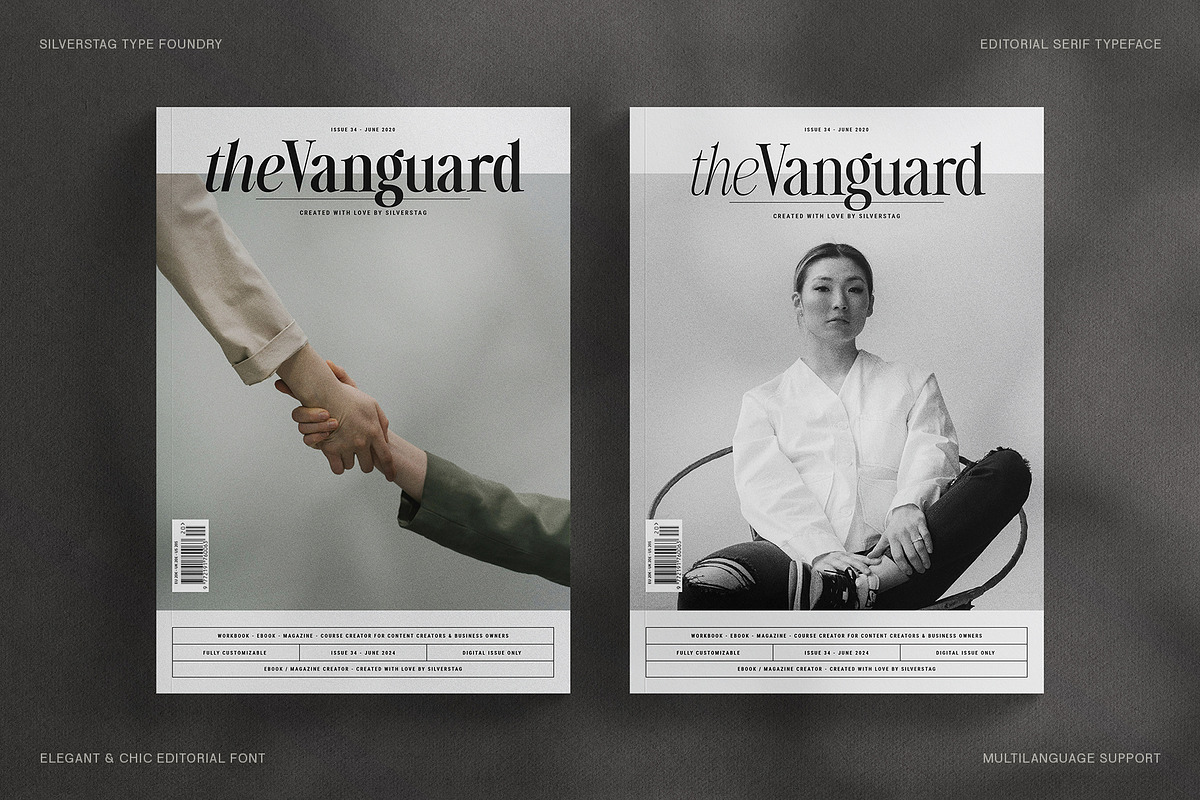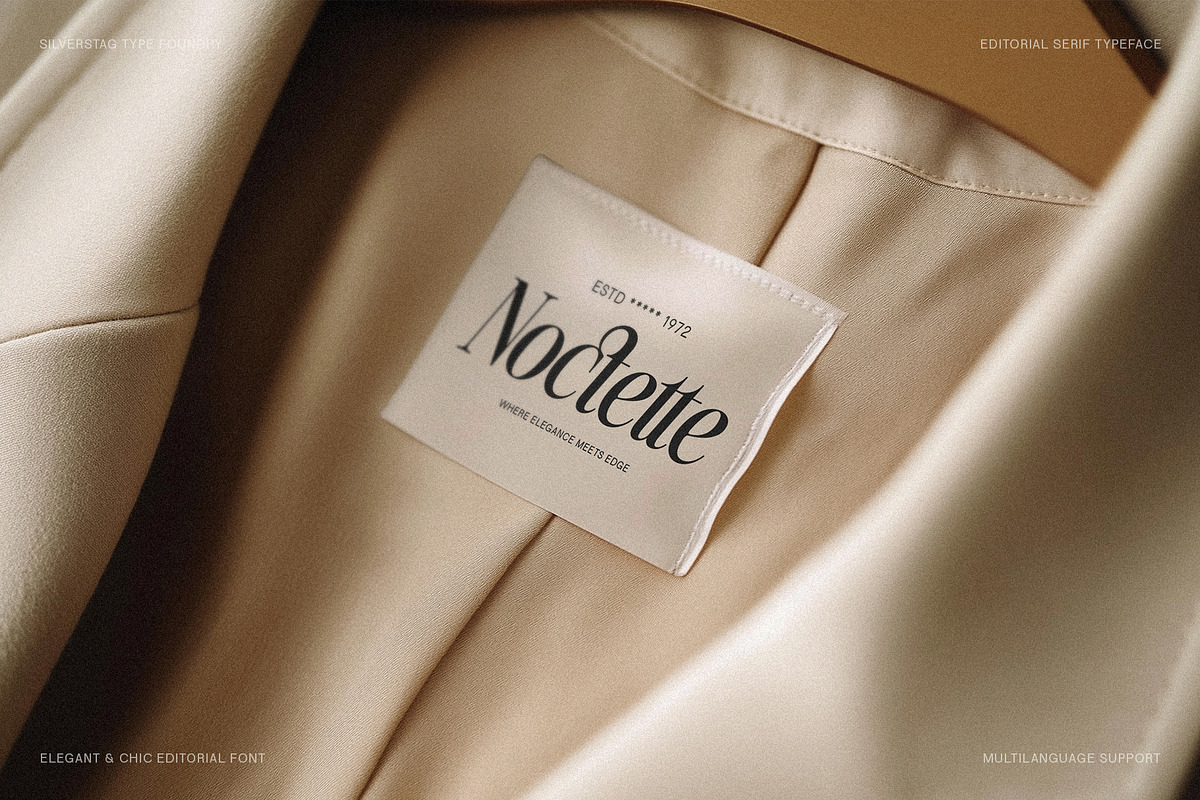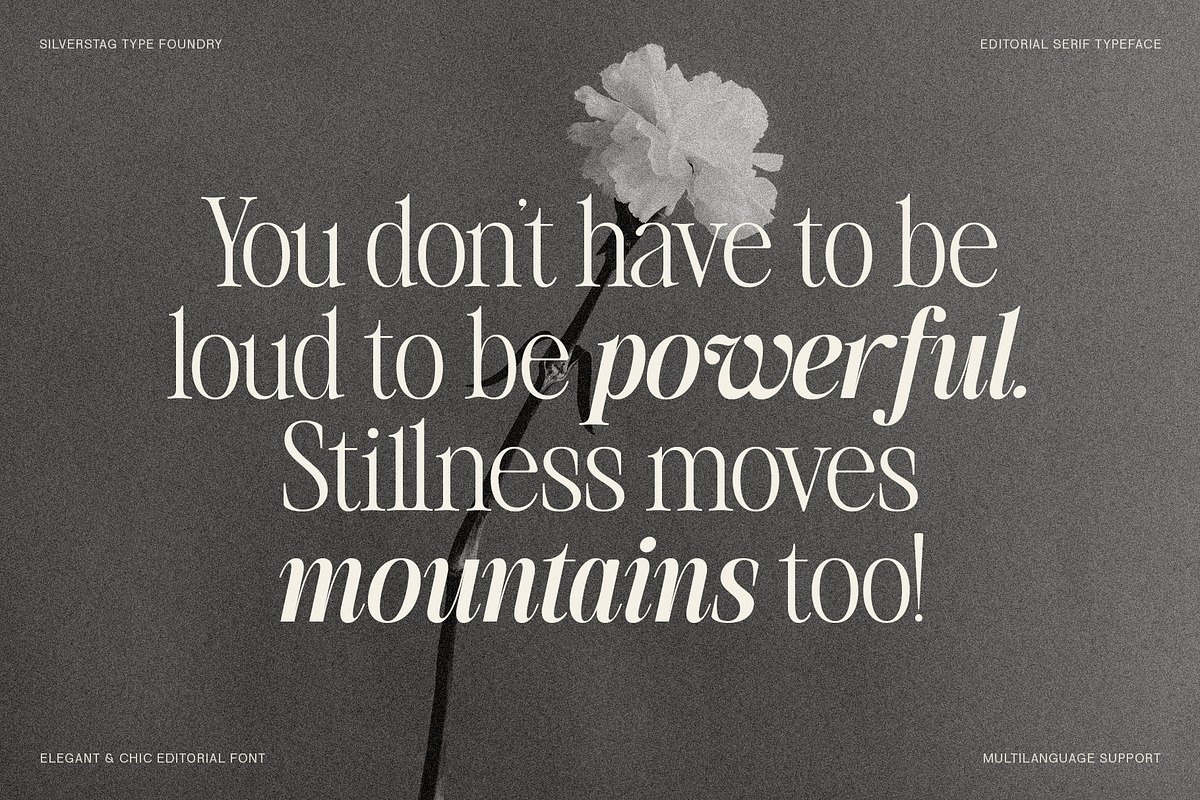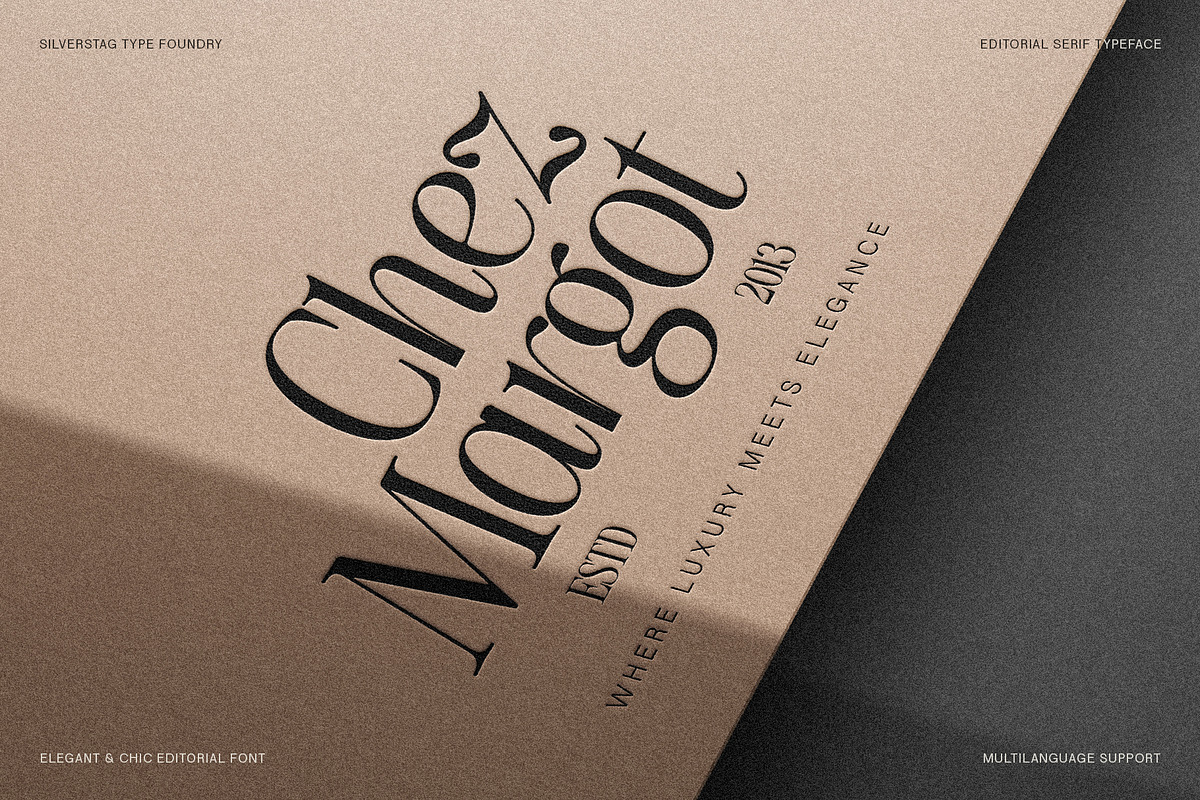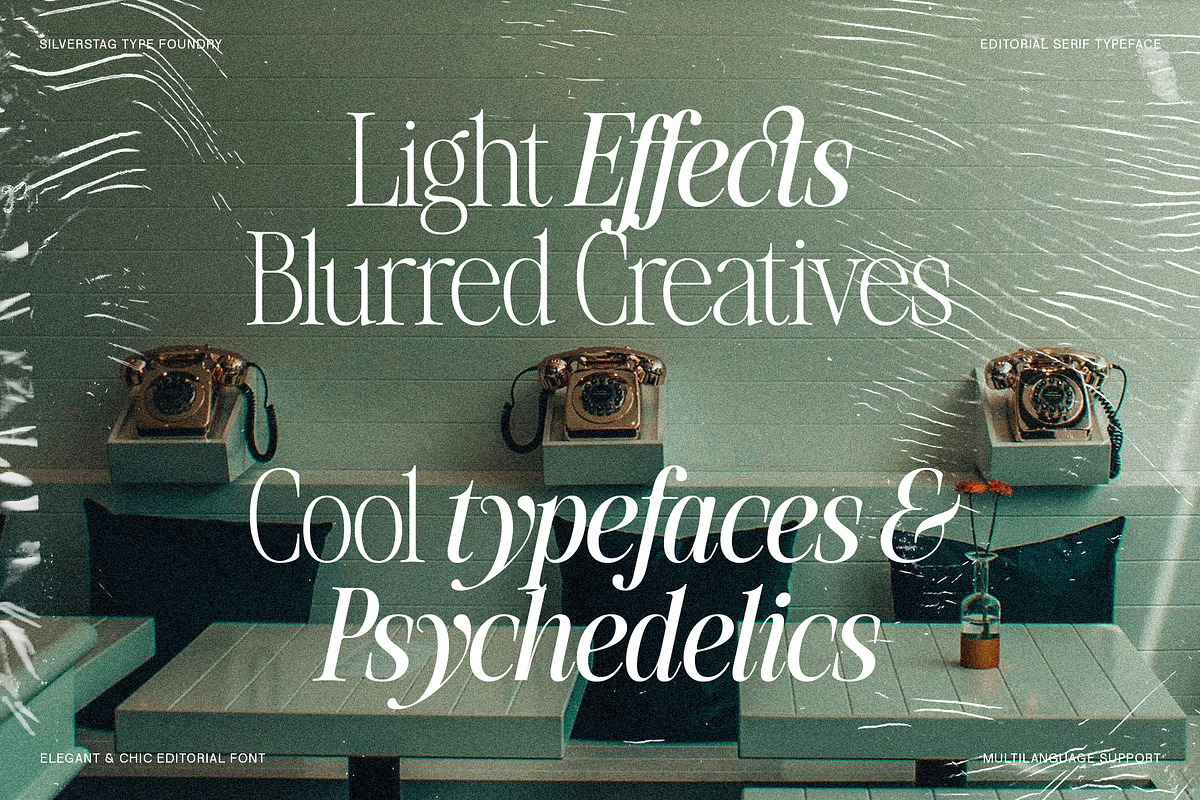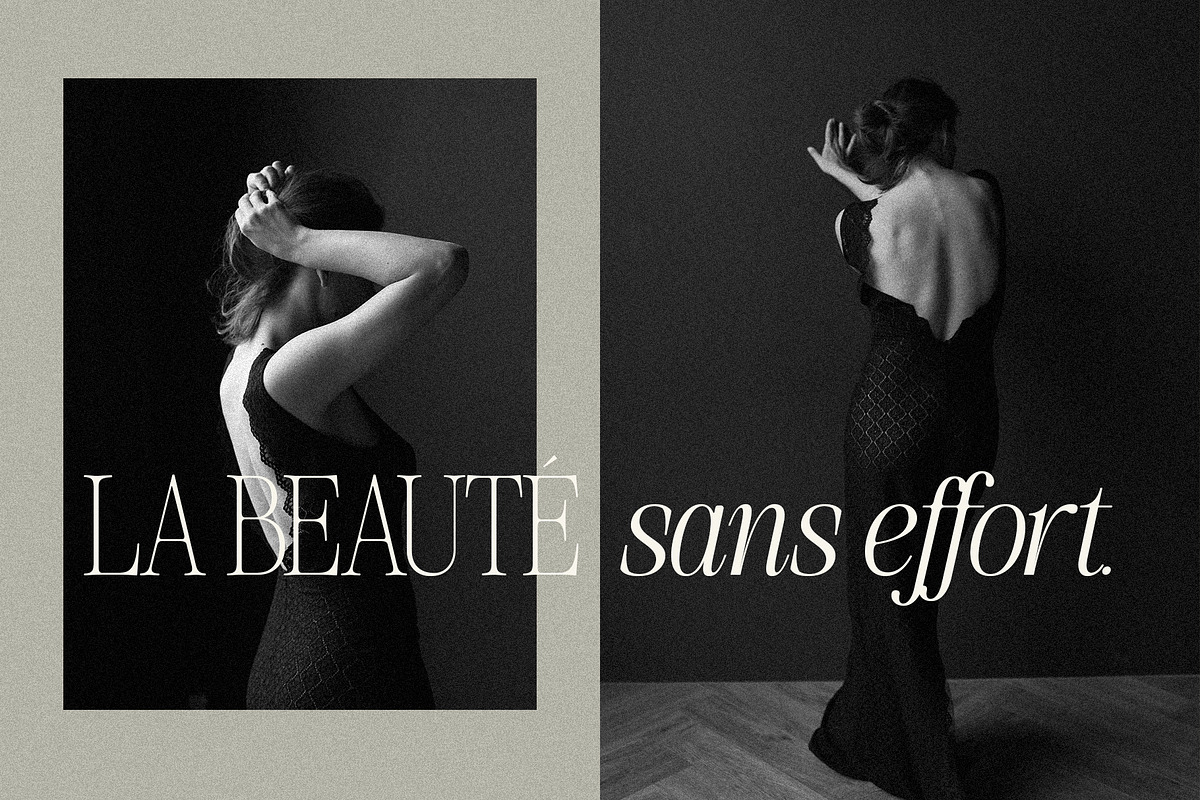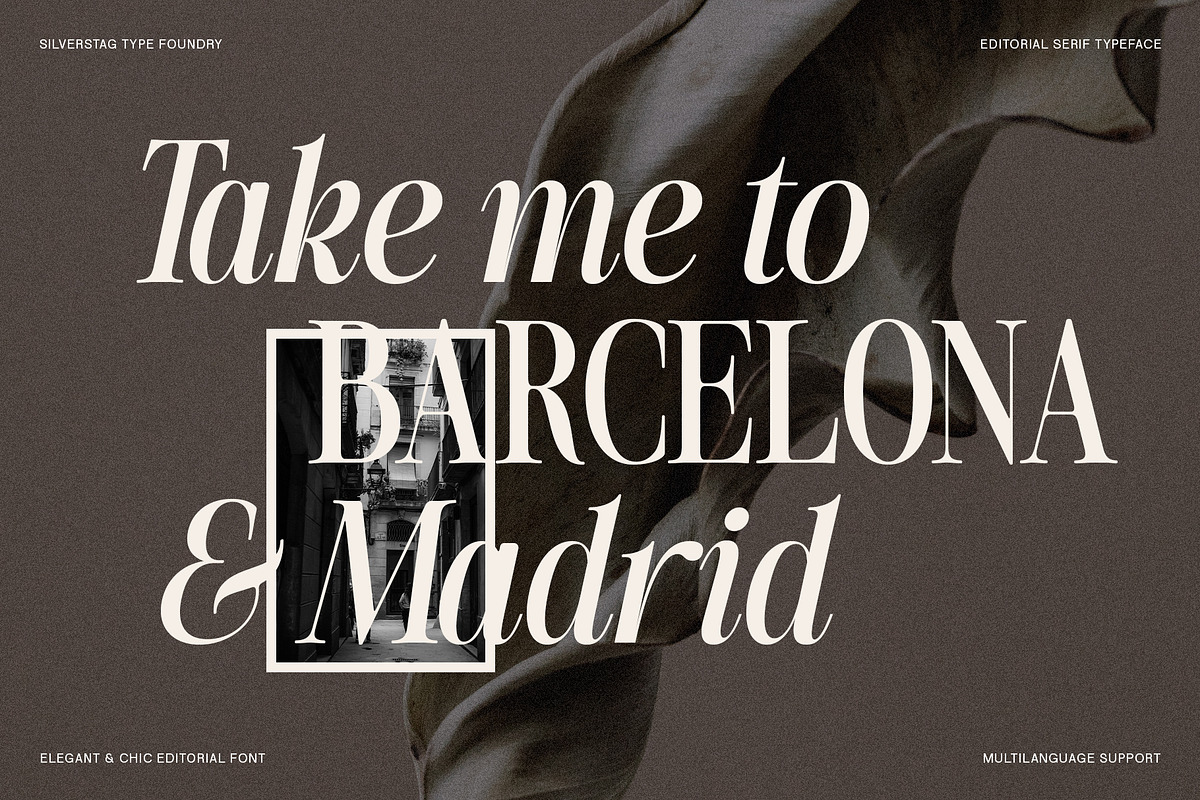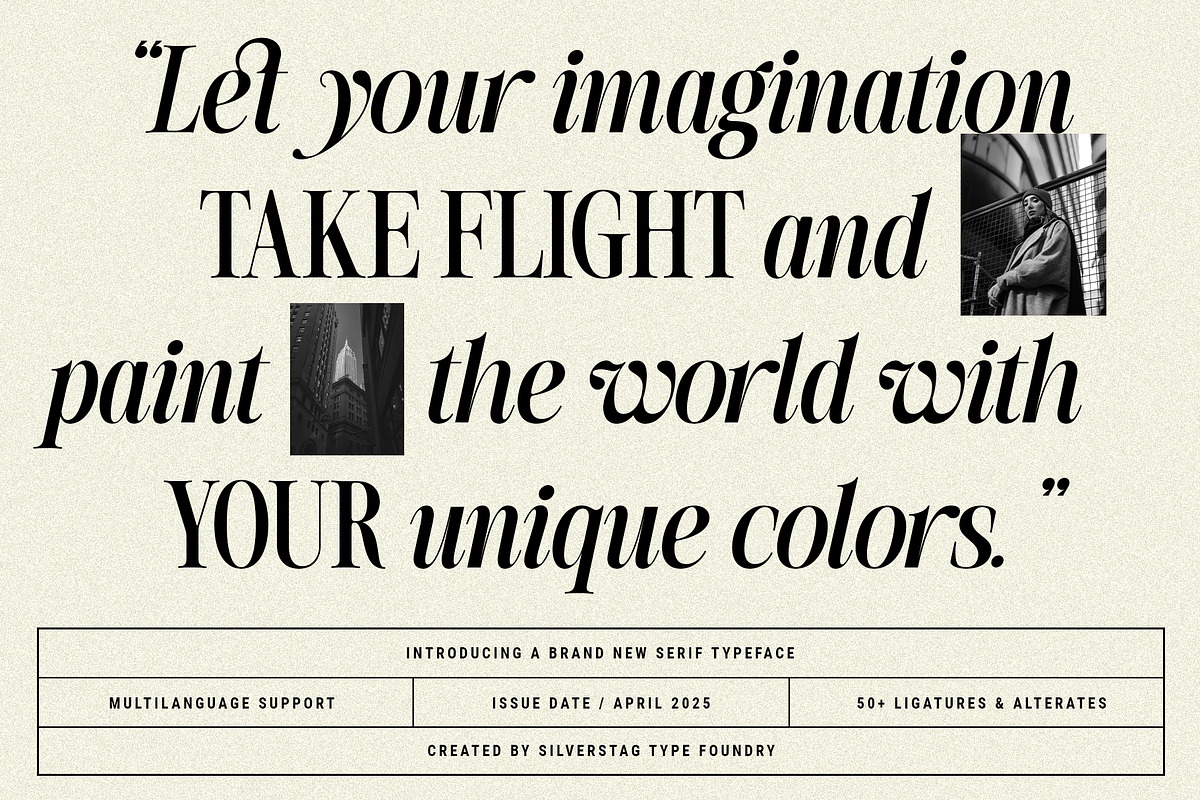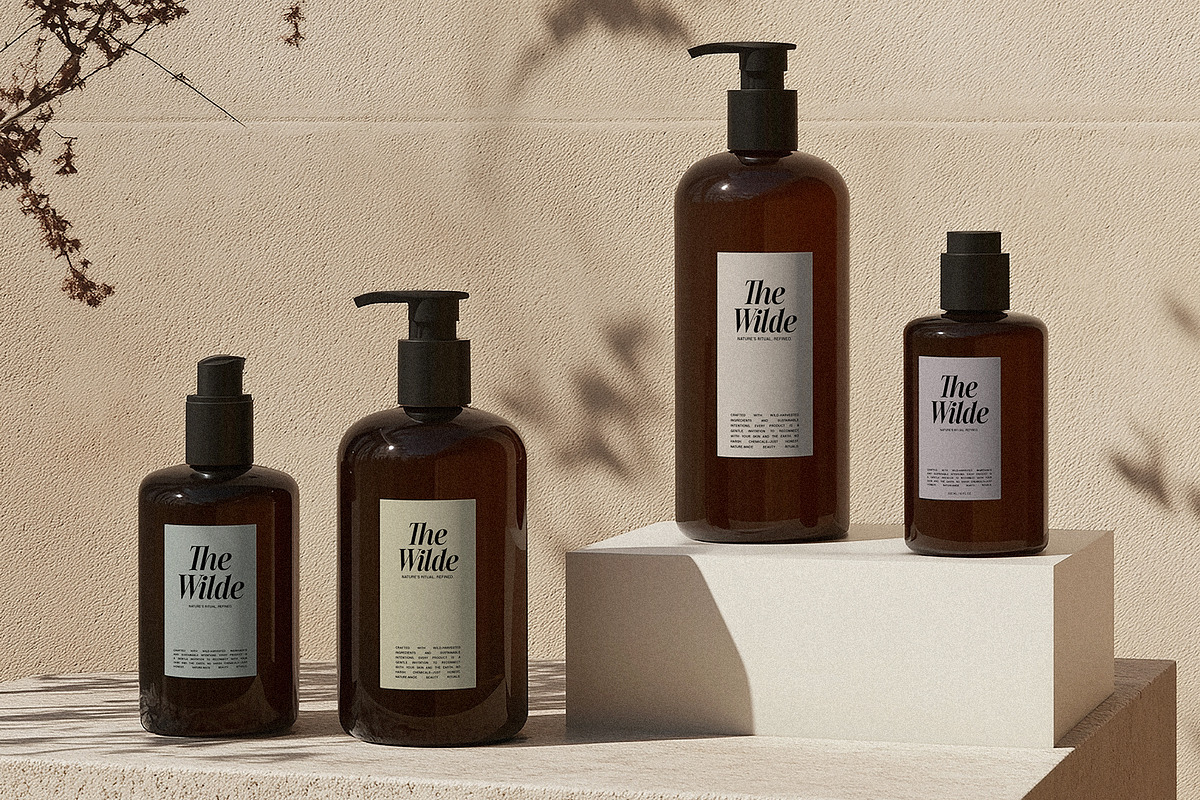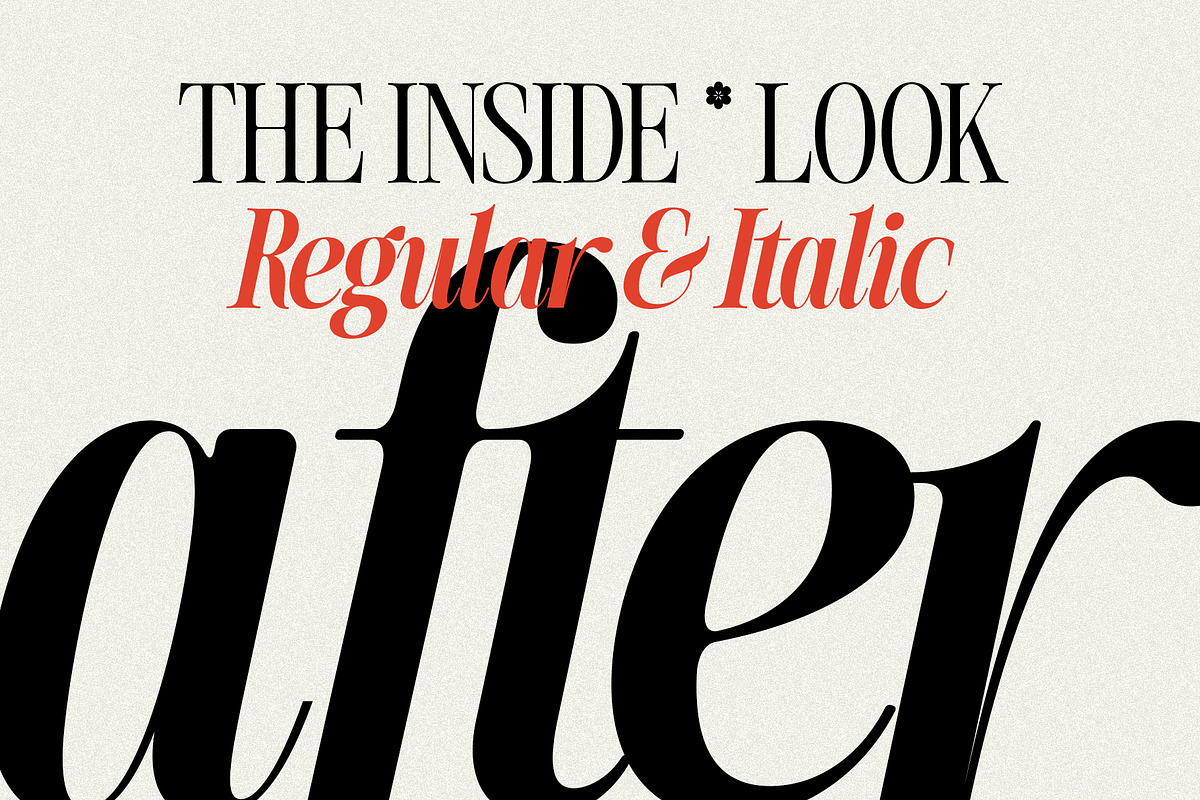
The Silver Editorial - 18 Fonts Pack
The Silver Editorial – A Nostalgic 18-Font Typeface—now more refined, versatile, and complete than ever before. This expanded version of one of my best-selling serif typefaces has been fully redrawn and upgraded into a comprehensive typographic system with 18 fonts in total (9 weights + italics). Designed for beauty and built for function.
As a font designer, I’m always searching for that perfect balance between the familiar and the unexpected. With The Silver Editorial, I believe I’ve found it. This fresh editorial serif draws inspiration from the iconic typefaces of the 1980s, yet exudes an undeniably modern spirit.
Remember the bold, expressive serifs that graced the pages of high-fashion magazines and cutting-edge publications in the 80s? The Silver Editorial channels that vintage charm while pushing the boundaries of contemporary design. I’ve taken the cool confidence of those typefaces, stripped away any excess, and sharpened them for the digital age.
Where It Shines
Luxury branding & packaging - Whether you’re building a high-end skincare line or designing labels for artisanal products, The Silver Editorial brings timeless elegance to your visual identity. Its refined contrast and beautifully sculpted forms create instant trust and visual appeal.
Editorial design - Perfect for magazines, books, lookbooks, and digital publications, this typeface thrives in editorial layouts. It balances dramatic presence with excellent readability, allowing you to create pages that feel both thoughtful and visually rich.
Web typography - Its clean structure and strong rhythm make it a reliable choice for websites that need a touch of personality without compromising user experience. From headings to subheadings, it brings a stylish yet accessible energy to modern web design.
Posters, portfolios & moodboards - Make a statement with eye-catching titles or pair it with expressive photography to create elegant, emotional storytelling. It’s the kind of font that gives your concepts that final, polished look — and makes people stop scrolling.
Logo design - The Silver Editorial has just the right amount of flair for bespoke logo work. Its alternates and ligatures allow for custom-feeling logotypes that are both contemporary and timeless, helping your brand identity stand out in a sea of sameness.
This isn’t a font that plays by the rules. The Silver Editorial commands attention in headlines, lending a touch of sophistication to even the most audacious layouts. Yet, it transitions seamlessly into elegant body copy, ensuring readability without sacrificing character. Its real power, however, lies in its italics. These aren’t simply slanted – they’re a work of art on their own, adding dynamic energy to my designs.
Design transcends borders, and so does The Silver Editorial. With support for over 100 languages, this font empowers me to make a statement on the global stage. Whether I’m crafting multilingual publications or aiming for worldwide appeal, The Silver Editorial ensures my message is received loud and clear.
If you’re a designer seeking a serif that stands apart, The Silver Editorial is your new essential. Experience its unique blend of retro cool and modern refinement.